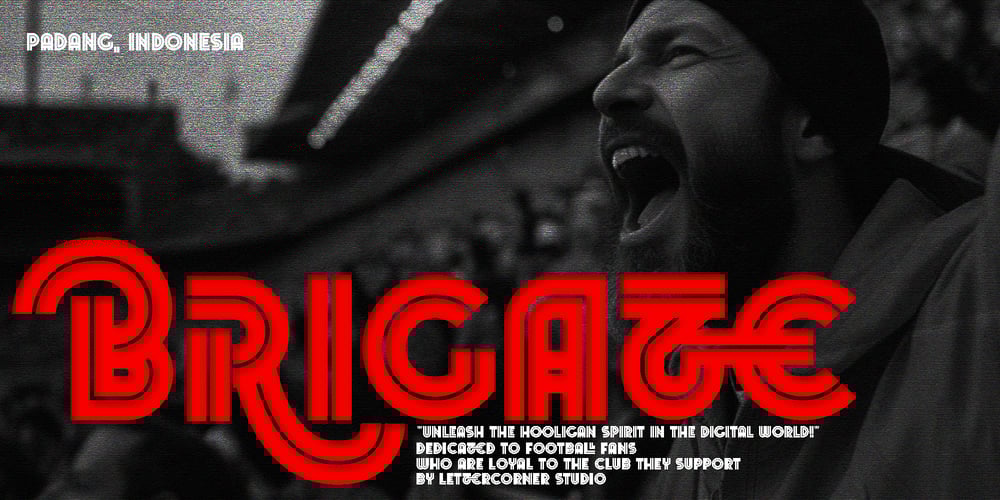
Brigate Font Family was designed by Muhammad Afif Ersya and published by Mevstory Studio. Brigate contains 2 styles and family package options. React is modern athletic display block font family. It’s timeless shapes and features will give you an instant athletic feel to your project. React features both chamfered corners and rounded giving it a unique approach.These fonts are perfect for sports logos, branding, posters, apparel design, magazine headlines, labels and so much more.